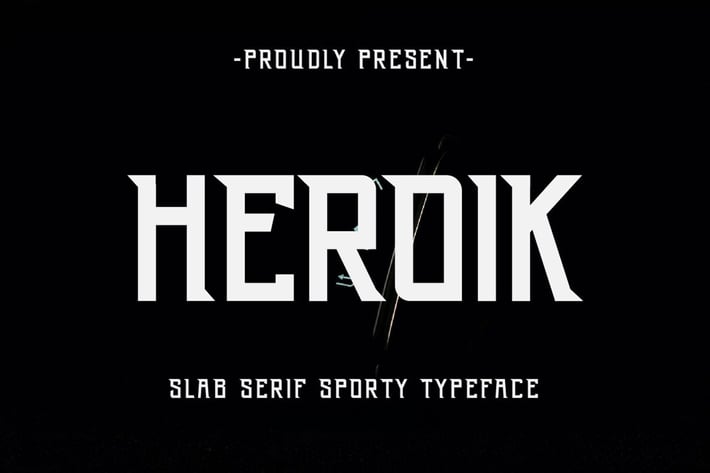
Heroik – Modern Sporty Slab Serif Display Font
Heroik is a bold and modern slab serif display font with a sporty, energetic feel. Designed for athletes, fitness brands, and competitive industries, this typeface combines geometric structure with strong slab serifs to convey confidence, motion, and discipline.
It’s perfect for sports team logos, event posters, activewear branding, and bold headlines that need to stand out.
Key Features:
- Strong slab serif with athletic attitude
- Designed for sports, fitness, and bold branding
- High legibility with dynamic character shapes
- Best for headlines, logos, and large display
- All caps with numbers and basic punctuation
- Clean kerning and optimized spacing
Heroik empowers your designs with strength, speed, and modern sports spirit.
Enhance your projects with Heroik – a perfect fusion of modern sports aesthetics and bold display typography.